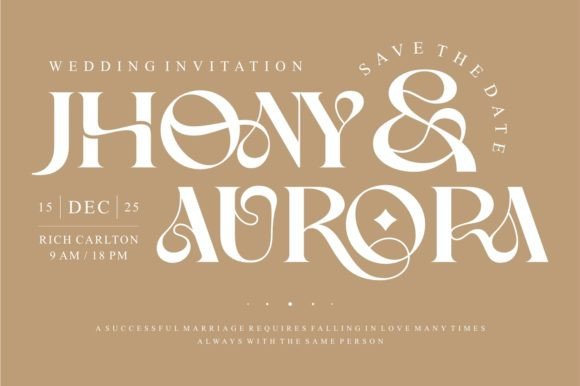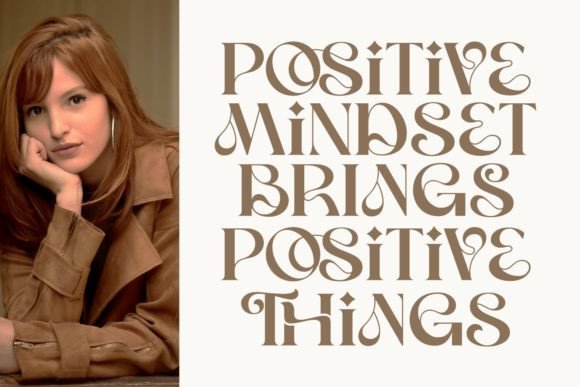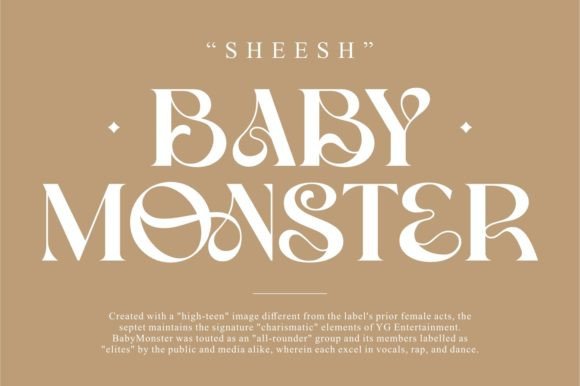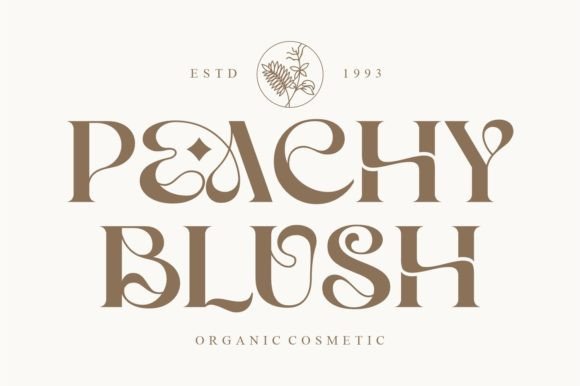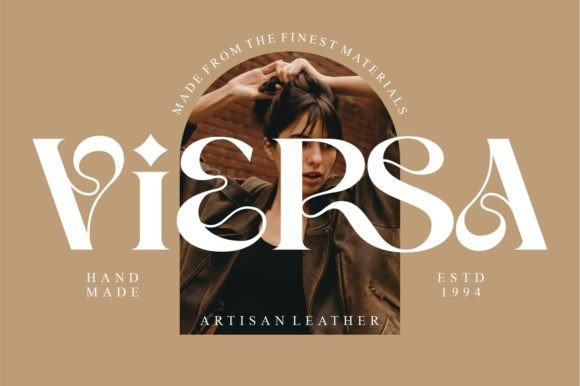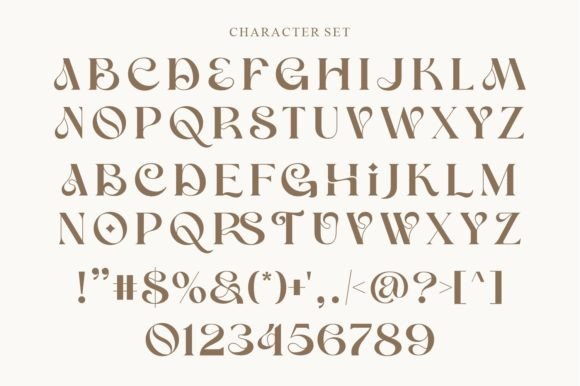
Introduction to Mosca Laroke Font
Mosca Laroke Font is a stylish display serif font with unique look that is perfect for multipurpose projects.
Mosca Laroke Font inspired by the concept of romantic vibes and made it into a modern yet luxury style This font is also looks elegant and will fit well in any design and very recommended for logo, crafts, posters, books, branding, quotes, print templates, packaging, invitations, product labels, advertising, wedding project and more.